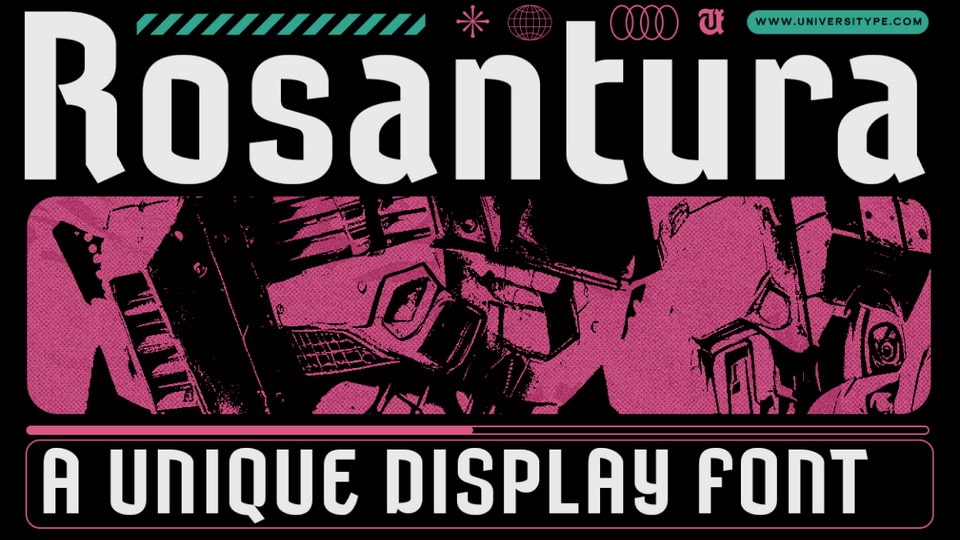
Download UT Rosantura font, a display typeface that speaks volumes about your design aesthetic with its unique blend of old-world charm and contemporary clarity.
Designer: Universitype Foundry